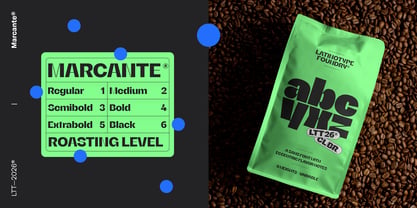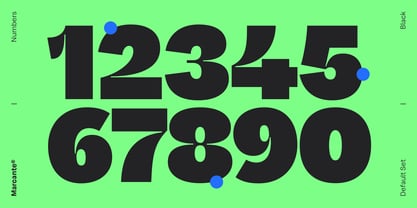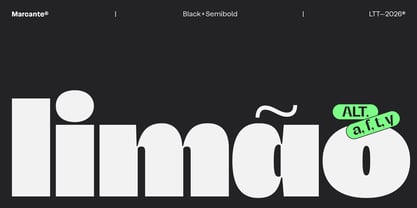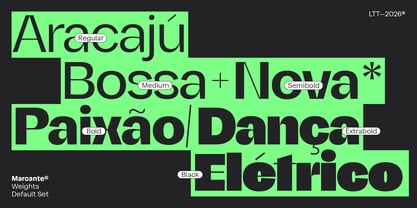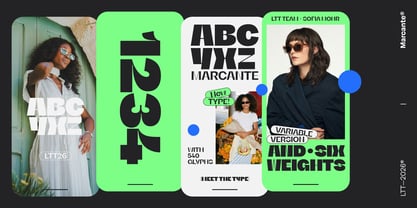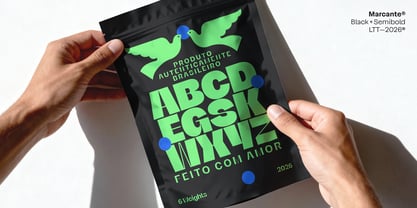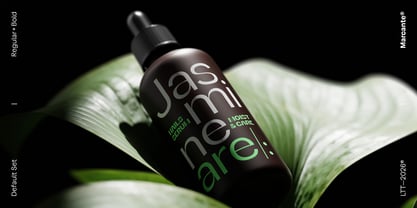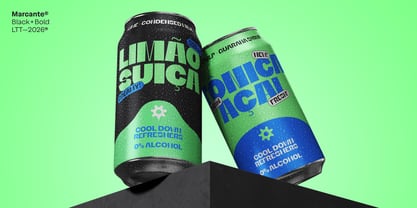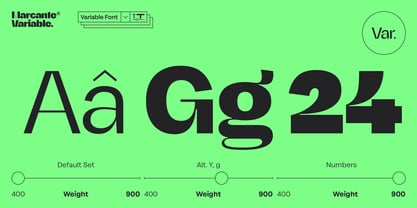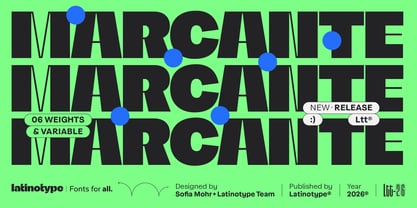
Marcante
The Marcante Font Family was designed by Sofia Mohr, Latinotype Team and published by Latinotype. Marcante contains 7 styles and family package options. More about this family
Marcante is a display typeface designed to stand out from the first glance. Its name — kept in Portuguese — precisely expresses its essence: to be impactful, striking, and memorable. From its Regular weight, the family asserts a clear presence: it does not seek neutrality, but character.
With six weights ranging from Regular to Black, plus a Variable font, Marcante offers an expressive range always oriented toward visual presence. Each weight intensifies its voice, evolving toward denser and more forceful variants designed for headlines that demand immediate attention.
Its construction combines the solidity of a neo-grotesque with the precision of a geometric. The contrast between wide curves and straight strokes generates rhythm and tension while defining a strong and recognizable identity.
That intensity is amplified in its visual language. Marcante deploys in high-impact compositions where typography occupies the center: extreme scales, repetitions, overlaps, and cuts build graphic blocks that organize space and capture attention.
A versatile tool for branding, editorial, and contemporary visual systems that seek to stand out with clarity and character.
Designed to catch the eye and stay in the memory.